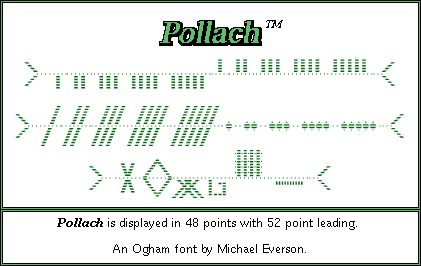
Pollach is a standard Ogham font suitable for scholarly publication. It is identical with Beith-Luis-Nion, having strong, clear strokes, notched vowels, and a stemline -- but it is made to print as "broken type" and can be used to show conjectural characters for difficult readings of Ogham material. This font is encoded according to I.S. 434:1999 and Unicode.